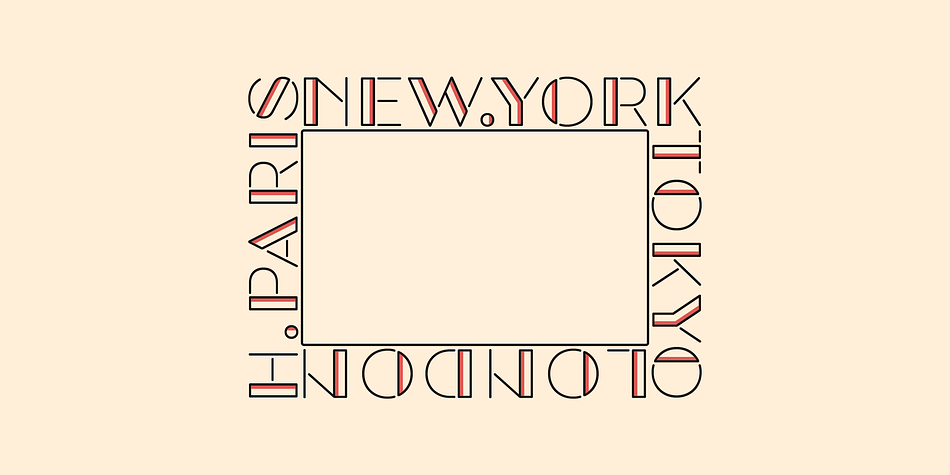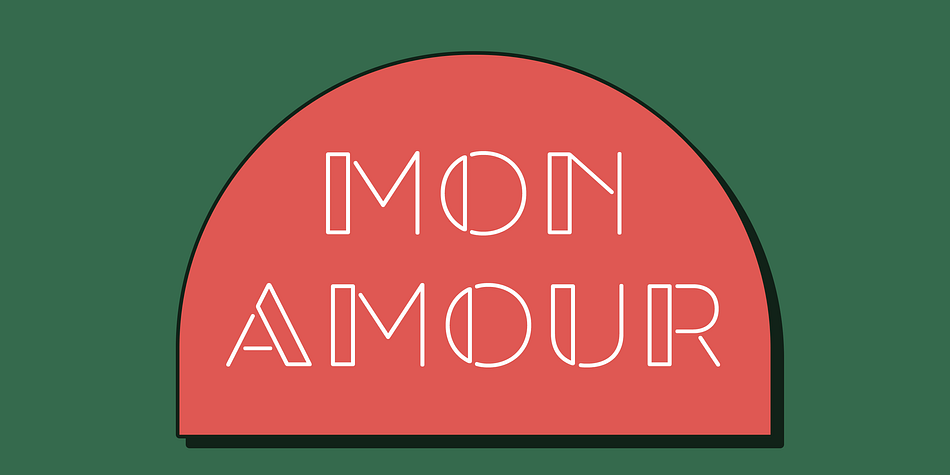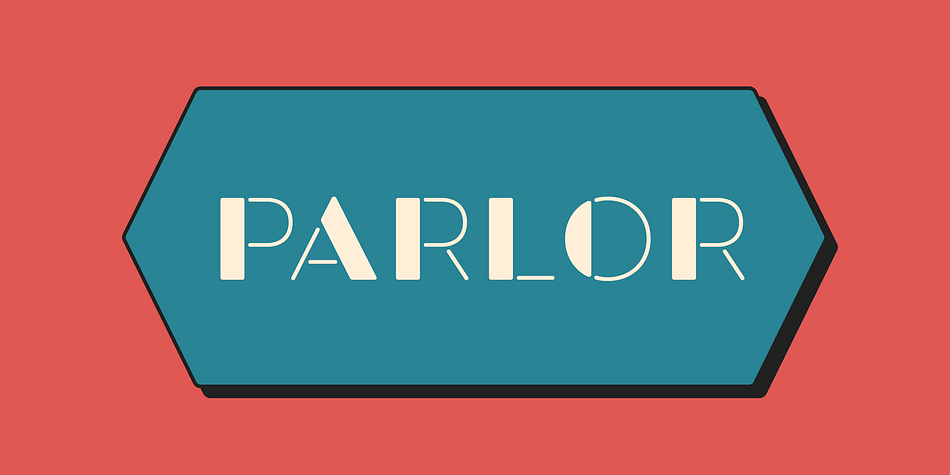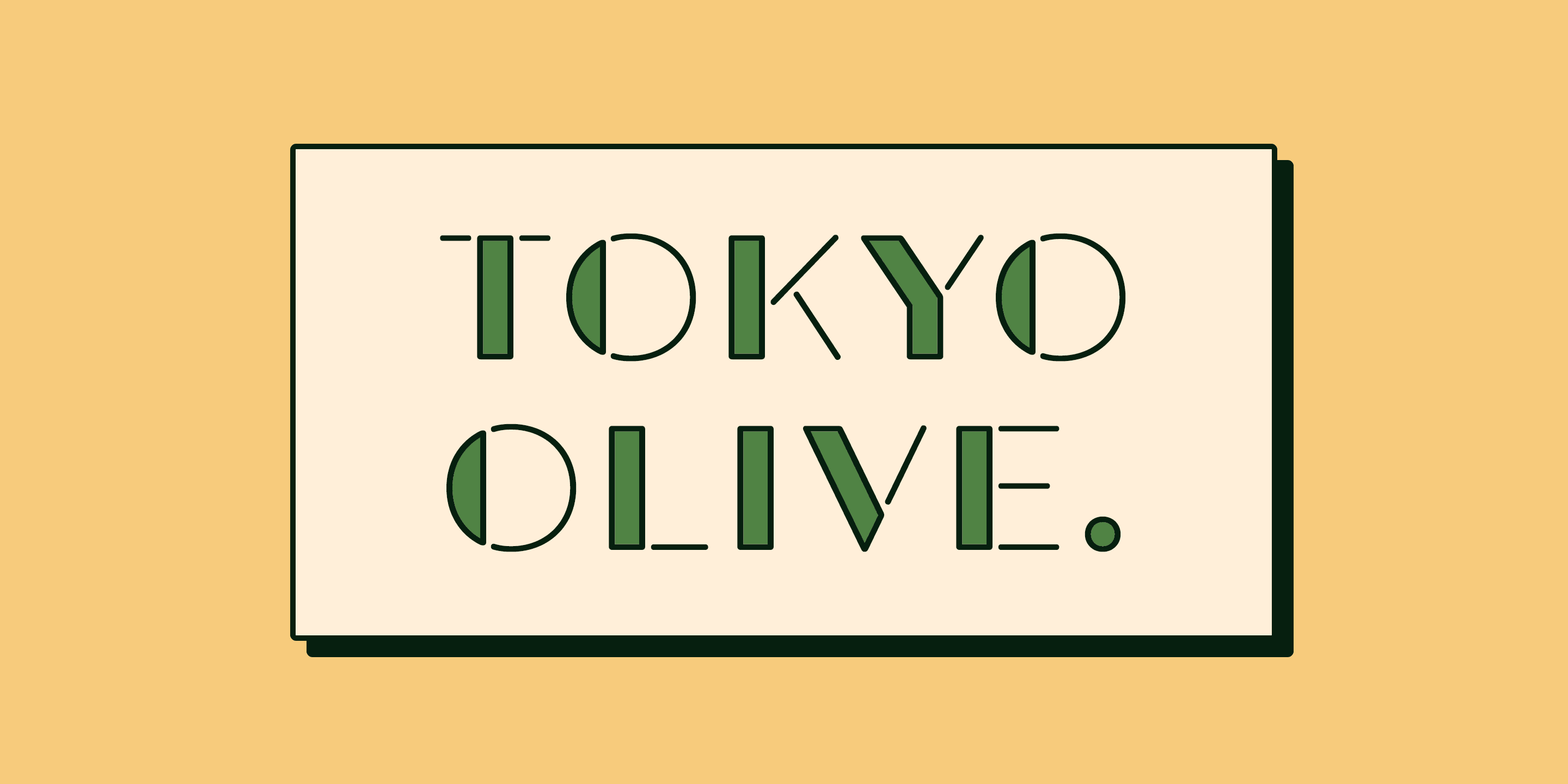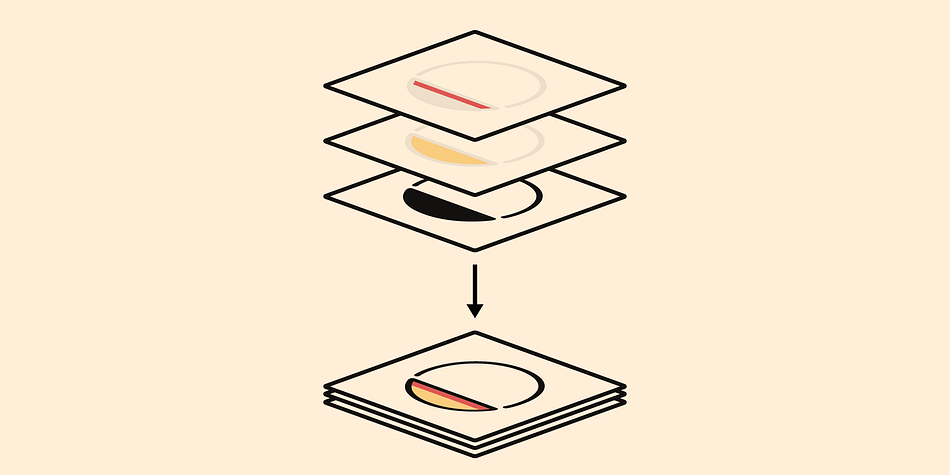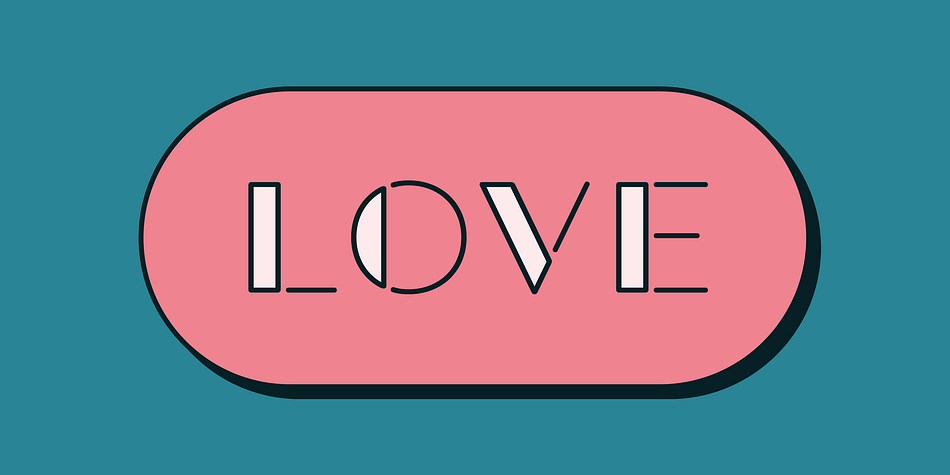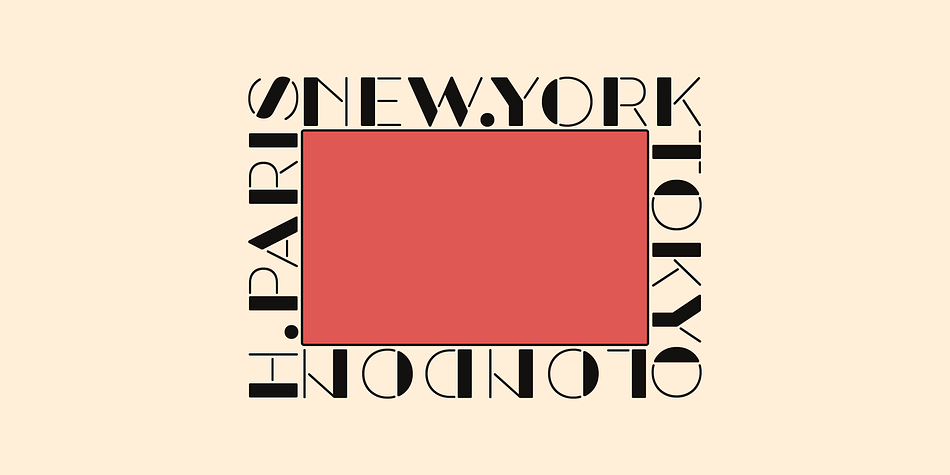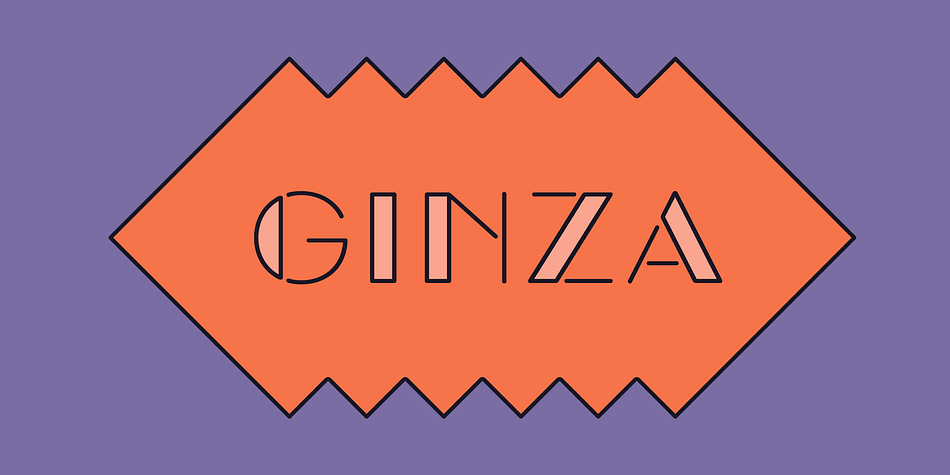
Designed by Ryoichi Tsunekawa, Tokyo Olive is an art deco and stencil font family. This typeface has five styles and was published by Dharma Type.
Tokyo Olive was designed as an homage to nostalgic display types and advertisements in the mid-late 80s.
The mid-late 80s was the era of the post-modernism and fancy-decorative design especially in Japan
In other words, it was the mixture of superficial form-operation and girly taste.
This curious design movement vanished without a trace in the 90s, but it had its moments.
Tokyo Olive has voluminous and simple geometric skeleton (for post-modern) with rounded and craft-style stencil joints (for fancy decoration).
We added a classic open style as a little spice. The mixture of those essences makes new impression we have never seen before.
Tokyo Olive family consists of 5 styles for stacking color font.
Layers are the printing plates of wood type. You should be able to change text color for each layer.
Tokyo Olive “Standard” style is the base of this font family.
You can add open effect by stacking “Fill” layers over the Standard layer.
Tokyo Olive Standard, Half Open, and Full Open style can be used solely.